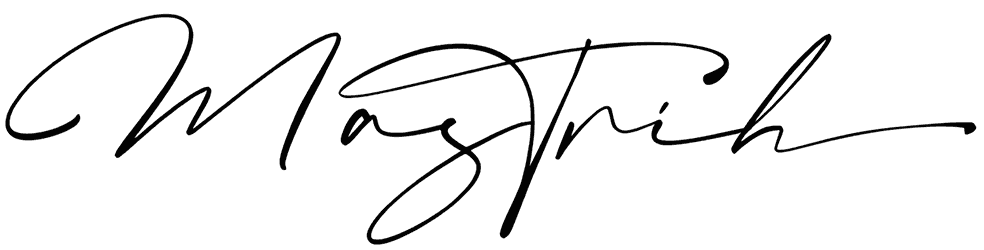
Mastrih Font
Classic and captivating would be suitable words to describe a script font such as Mastrih which comes with cursive and wavy style.
It doesn’t have good readability due to its sophisticated design, but it is really fabulous on posters, banners, billboards, magazines, web pages, and business cards. With the help of this signature font, conveying a sense of drama, vintage, and momentum is a piece of cake.